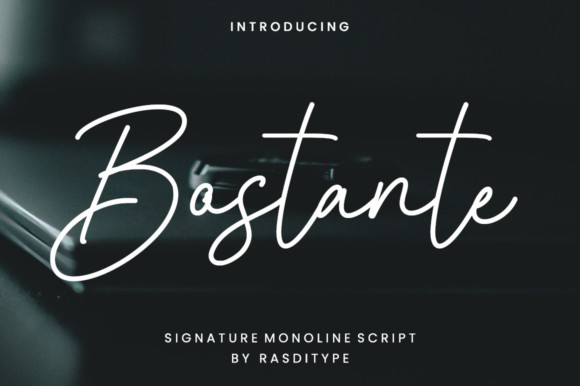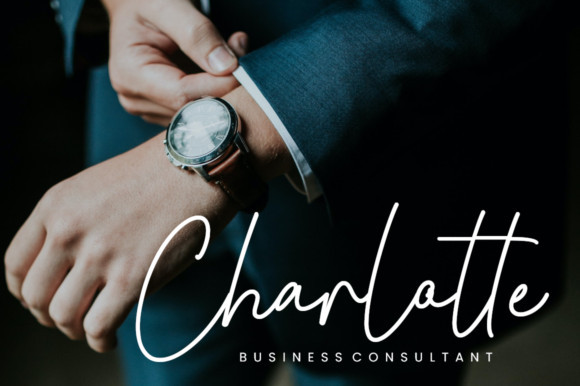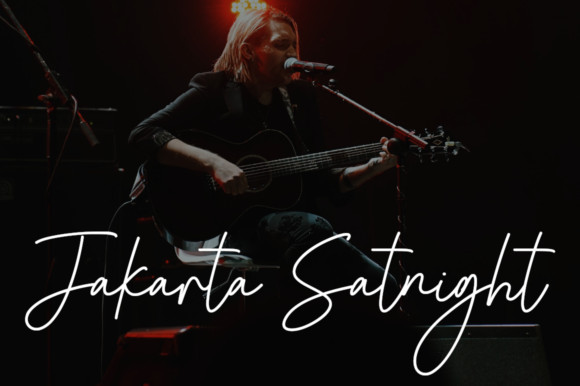
Bostante Font
Bostante is an exquisite handwritten font, masterfully designed to become a true favorite. Fall in love with it and bring your projects to the highest levels!